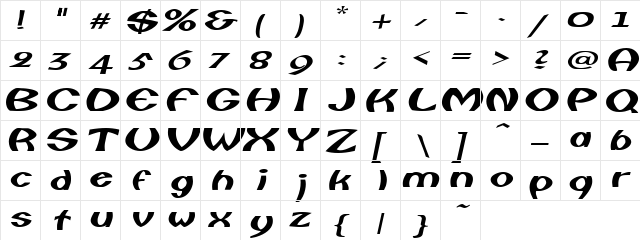
FishermanExtended Oblique
Design Context for FishermanExtended Typeface
FishermanExtended is a composed and adaptable typeface that performs quietly and consistently across a wide range of design contexts. Its italic angle brings a sense of urgency and motion to the letterforms.
Pro Tip: Use FishermanExtended for emphasis, pull quotes, and subheadings where its slanted energy can add rhythm to the layout.